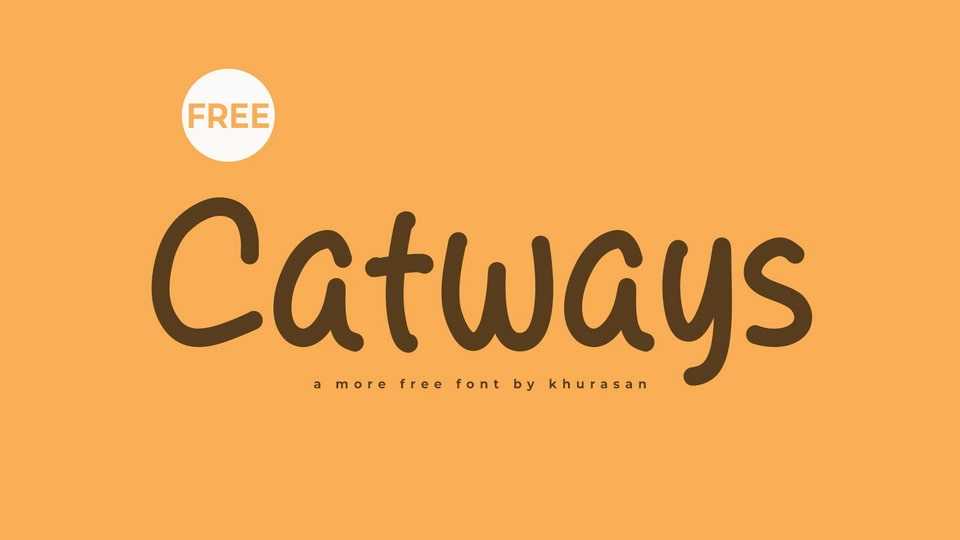
Download Catways font, a lively and playful hand-drawn comic typeface that injects a dose of fun into your designs. With its whimsical letterforms and spontaneous strokes, Catways font brings the spontaneity of hand-drawn comics to your creative projects